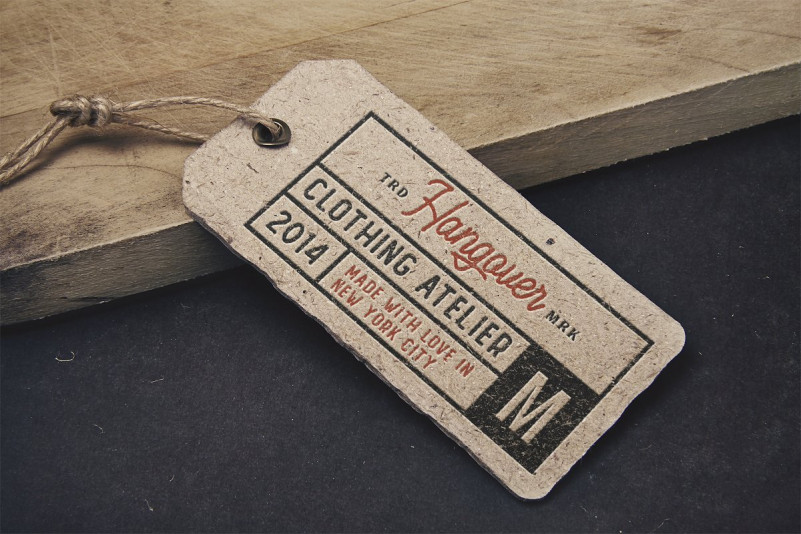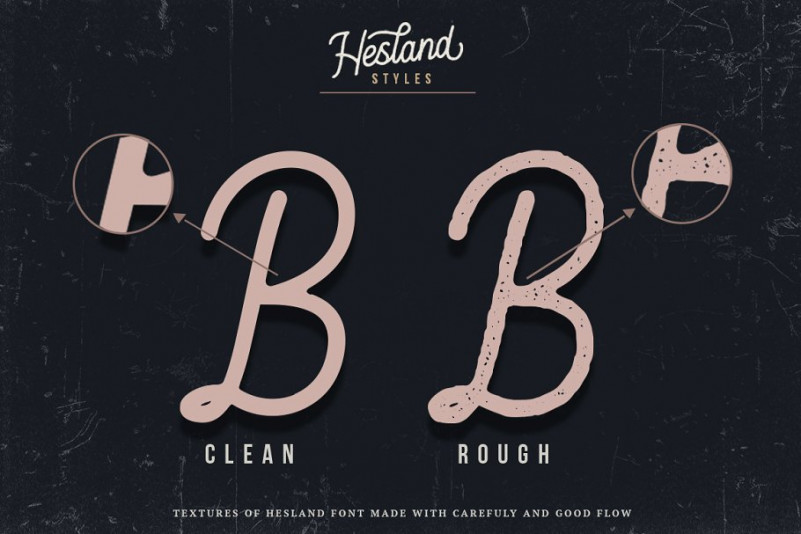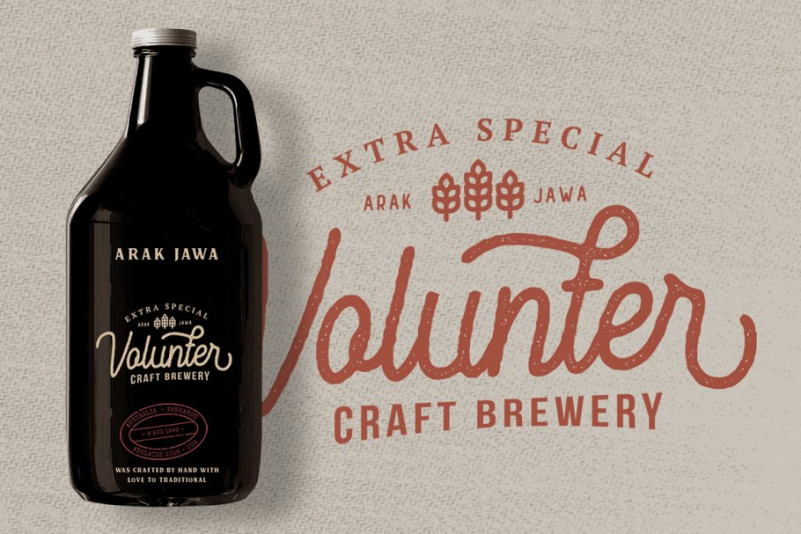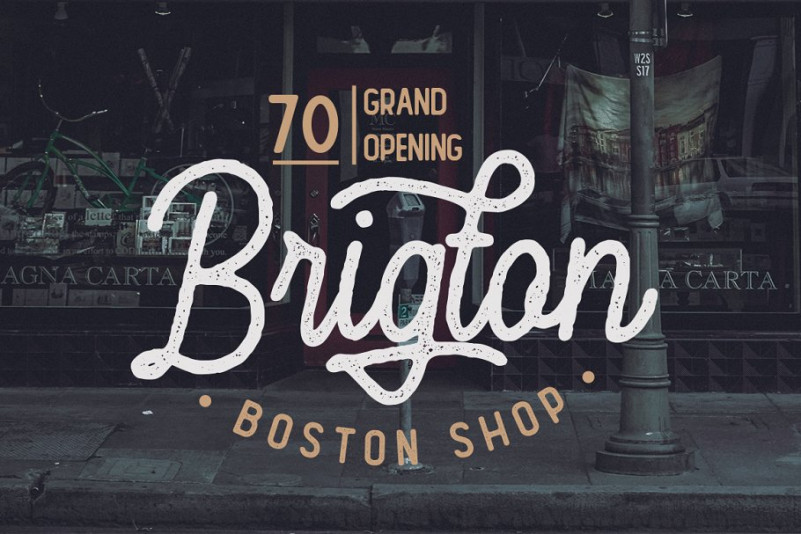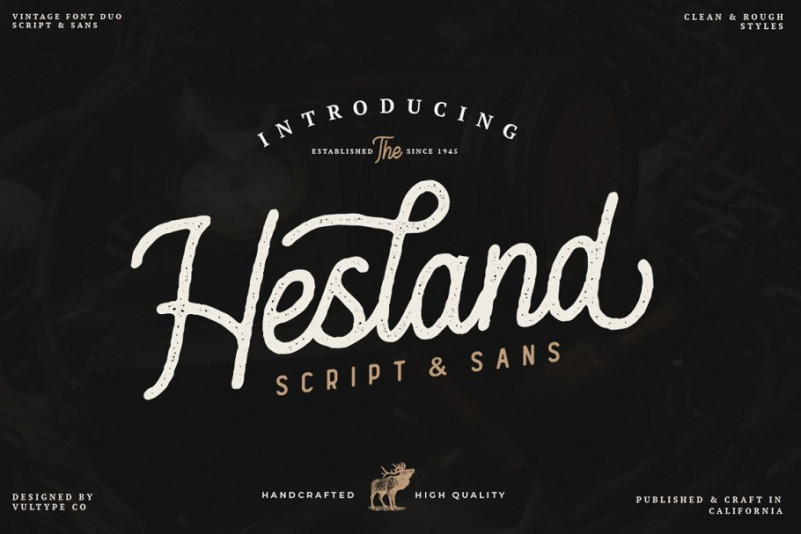
Hesland Vintage Font Duo
A new vintage font typeface, it has a modern vintage look design styles. The font have smooth edges to simulate the look of an vintage printing, so it will bring a vintage handmade looked like. Introducing Hesland Font. Hesland Vintage Font Duo inspired by the vintage old american which has two styles, Clean and Stamped. come with script and sans serif this font.
This font has a vintage feel with styles stamp on each letter. great for Logotype, Branding Design, Vintage Logo Design, Digital Lettering Arts, Retro, Vintage lettering, and any vintage design needs.